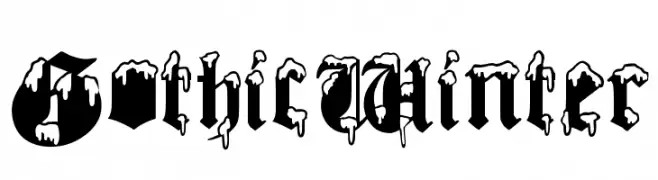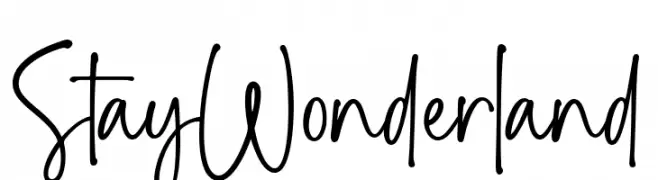
A whimsical, decorative font with vine-like embellishments and a hand-drawn appearance.
A whimsical, hand-drawn font with a playful and enchanting style.
A playful, whimsical handwritten font with tall, narrow letters and irregular strokes.
A bold, decorative font with a dotted pattern, perfect for vintage-themed projects.
A festive, snowflake-adorned decorative font perfect for holiday themes.
A Gothic font with snow-themed accents, perfect for winter designs.
A festive, star-studded script font perfect for holiday-themed projects.